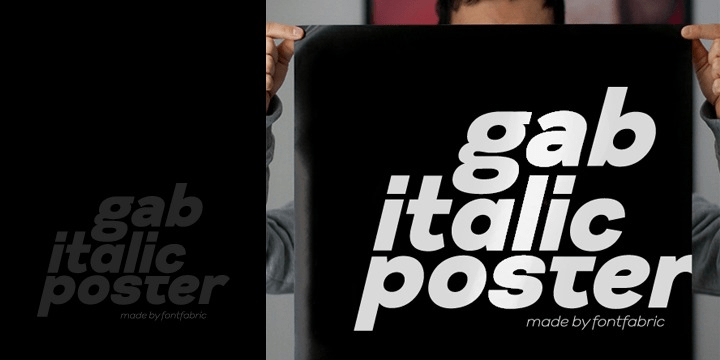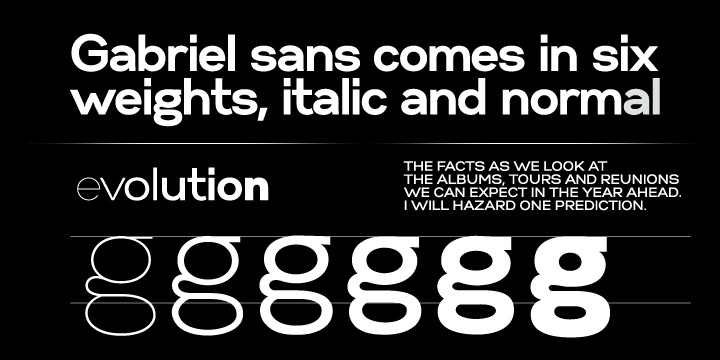
Gabriel Sans
About Gabriel Sans
Gabriel Sans is a font family inspired by the original Sans Serif fonts of the Transitional age like Futura and Grotesk, but with a modern twist. It is clean, elegant and straight-to-the-point. It has features similar to the classic Helvetica – like the…